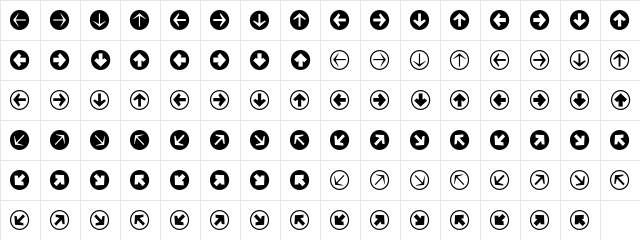
MiniPics DirectionalRA
Design Context for MiniPics Typeface
MiniPics is a composed and adaptable typeface that performs quietly and consistently across a wide range of design contexts.